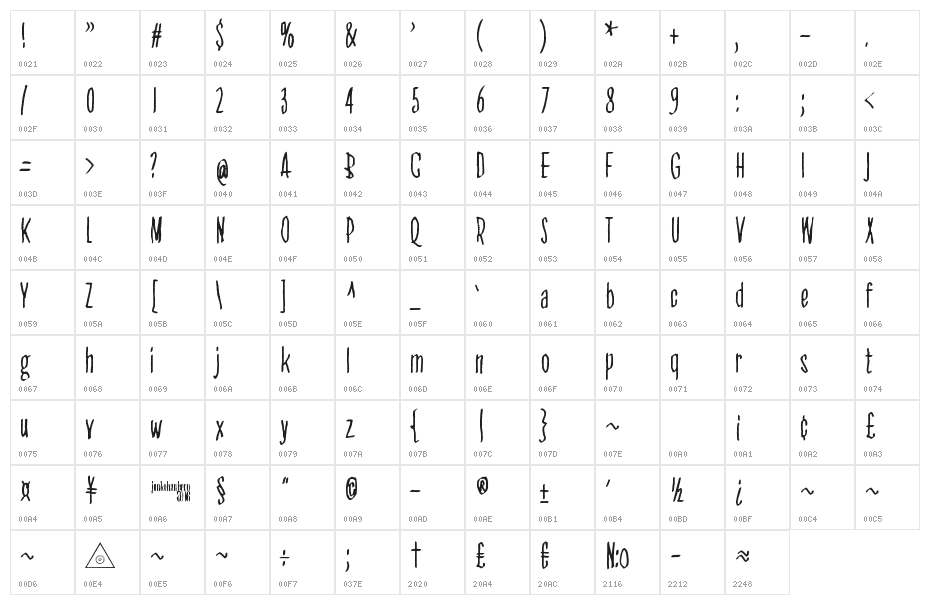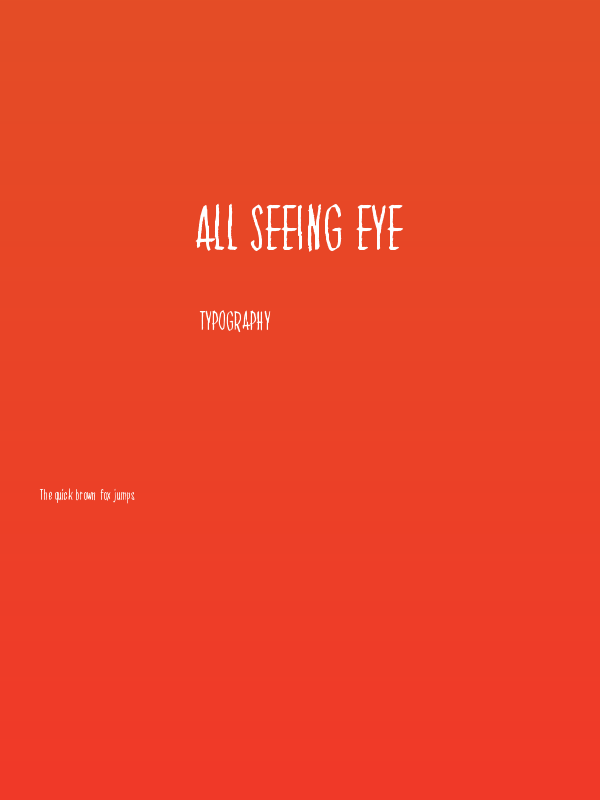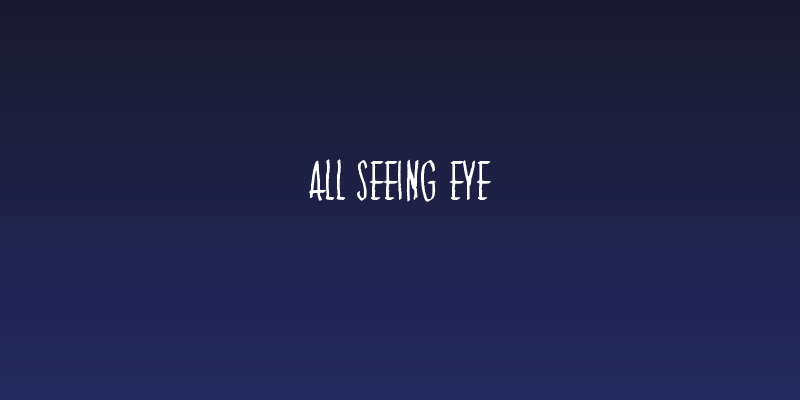
All Seeing Eye Font
All Seeing Eye Description
This font features a hand-drawn, organic style with irregular strokes and a slightly distressed appearance. The uppercase and lowercase letters exhibit a playful yet edgy character, with varying line thickness that adds a dynamic feel. The numerals and special characters maintain this whimsical aesthetic, making the font suitable for creative and artistic projects. Its unique style is reminiscent of vintage poster art, offering a blend of retro charm and modern flair. The font's uneven baseline and quirky angles give it a distinctive personality, perfect for capturing attention and conveying a sense of individuality.
| Overall Style | Vintage, Decorative |
| Proposed Projects | Ideal for posters, album covers, branding, and creative design projects. |